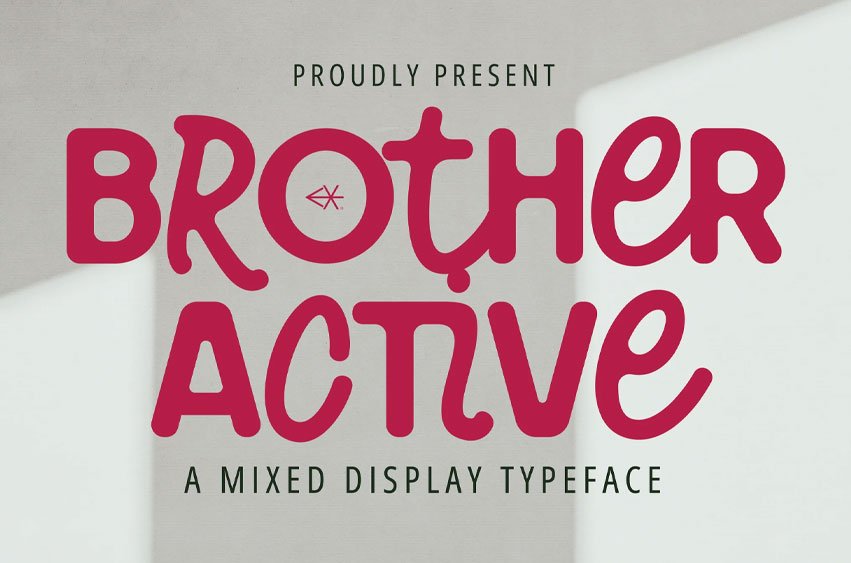
Brother Active Font is an experimental and unique font with stylish curves and a modern visual design. Brother Active is here to make your projects more stunning and eye-catching.
Brother Active Display Font is the perfect choice for any creative endeavor! Whether it’s logos, advertisements, watermarks on photos, stationery, branding projects, magazine layouts, invitations, corporate branding, product designs, labels, business projects, or any other project that needs an elegant touch, Brother Active has got you covered.
- Unique Gylph Letters